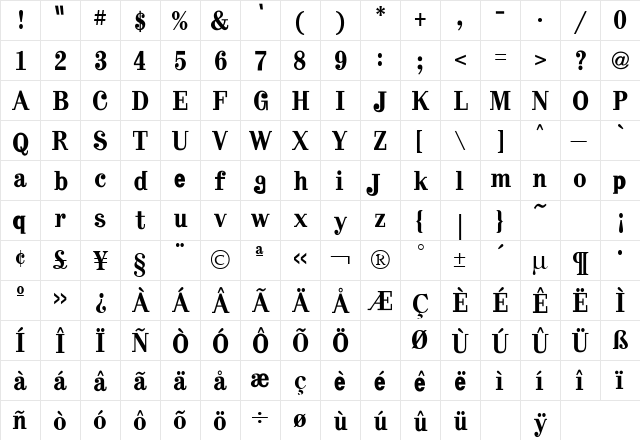
old jeep logo Bold
Design Context for old jeep logo Typeface
old jeep logo offers clean, dependable letterforms without strong stylistic allegiance, making it a practical choice for designers who need flexibility. Its bold stroke weight gives it real presence on the page.